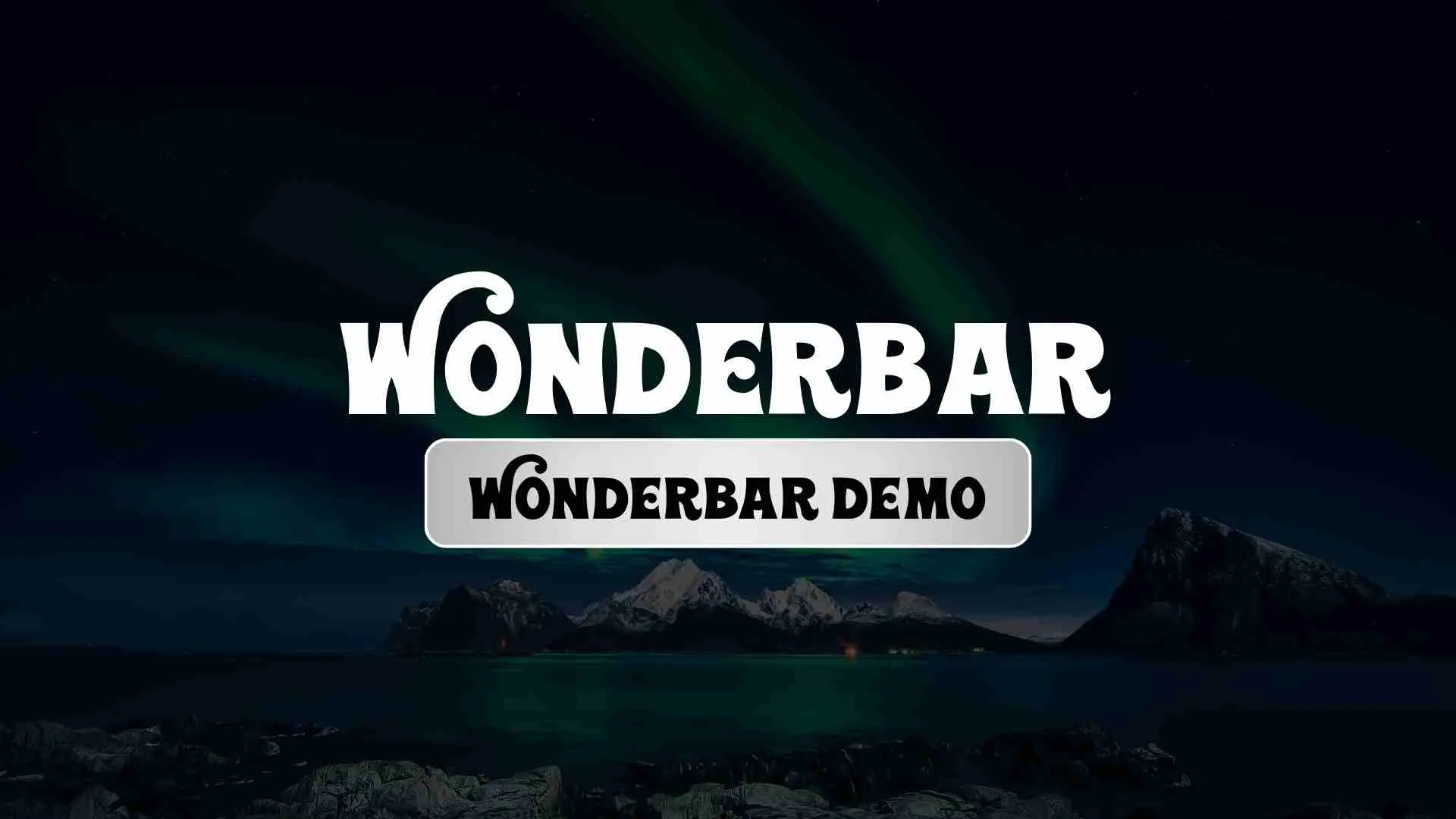
The font Wonderbar Demo, designed by Dennis Ludlow, falls under the Display category & Wonderbar font family. Its smooth, flowing letterforms make it a versatile choice for projects that require both elegance and readability. Wonderbar is particularly well-suited for Branding, Logo, Children's Media, Retro/Nostalgia Projects, Event Promotion and Food & Confectionery. With its balance of simplicity and decorative appeal, this font brings a polished touch to both personal and professional designs.